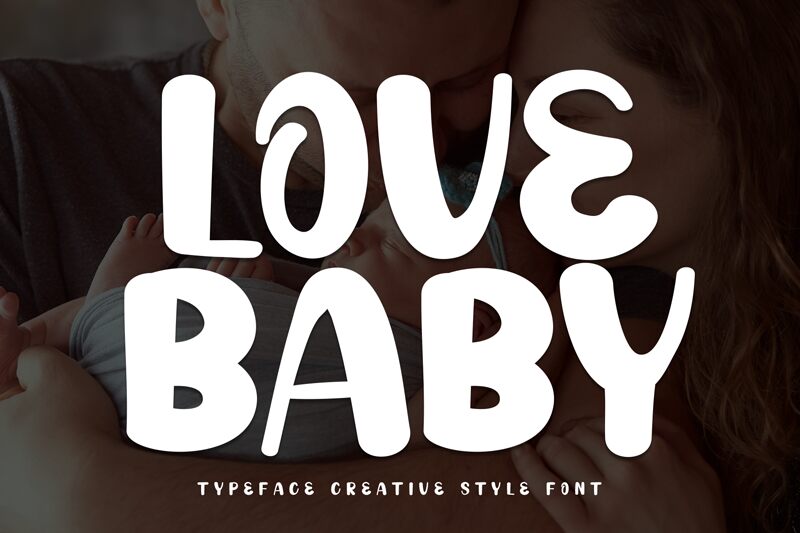
Love Baby
Love Baby font by Scratchones is a bold cartoon display typeface with expressive rounded forms. Aimed at capturing the youth’s casual feel, it features artistic influences and a retro vibe. A free resource to color up your prints and web designs, this font stands among the most versatile free resources available today.
Use Love Baby in animated movie posters, series trailers, package labels, cartoons covers, children’s booklets titles inside texts or any other graphic design projects you wish.